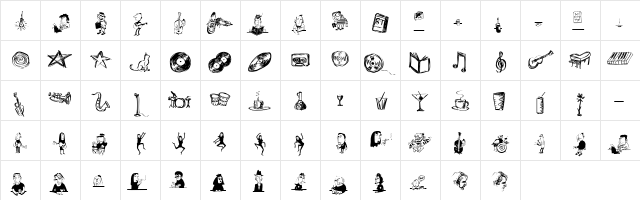
P22DaddyO-Beatsville Medium
Design Context for P22DaddyO-Beatsville Typeface
P22DaddyO-Beatsville is a composed and adaptable typeface that performs quietly and consistently across a wide range of design contexts.